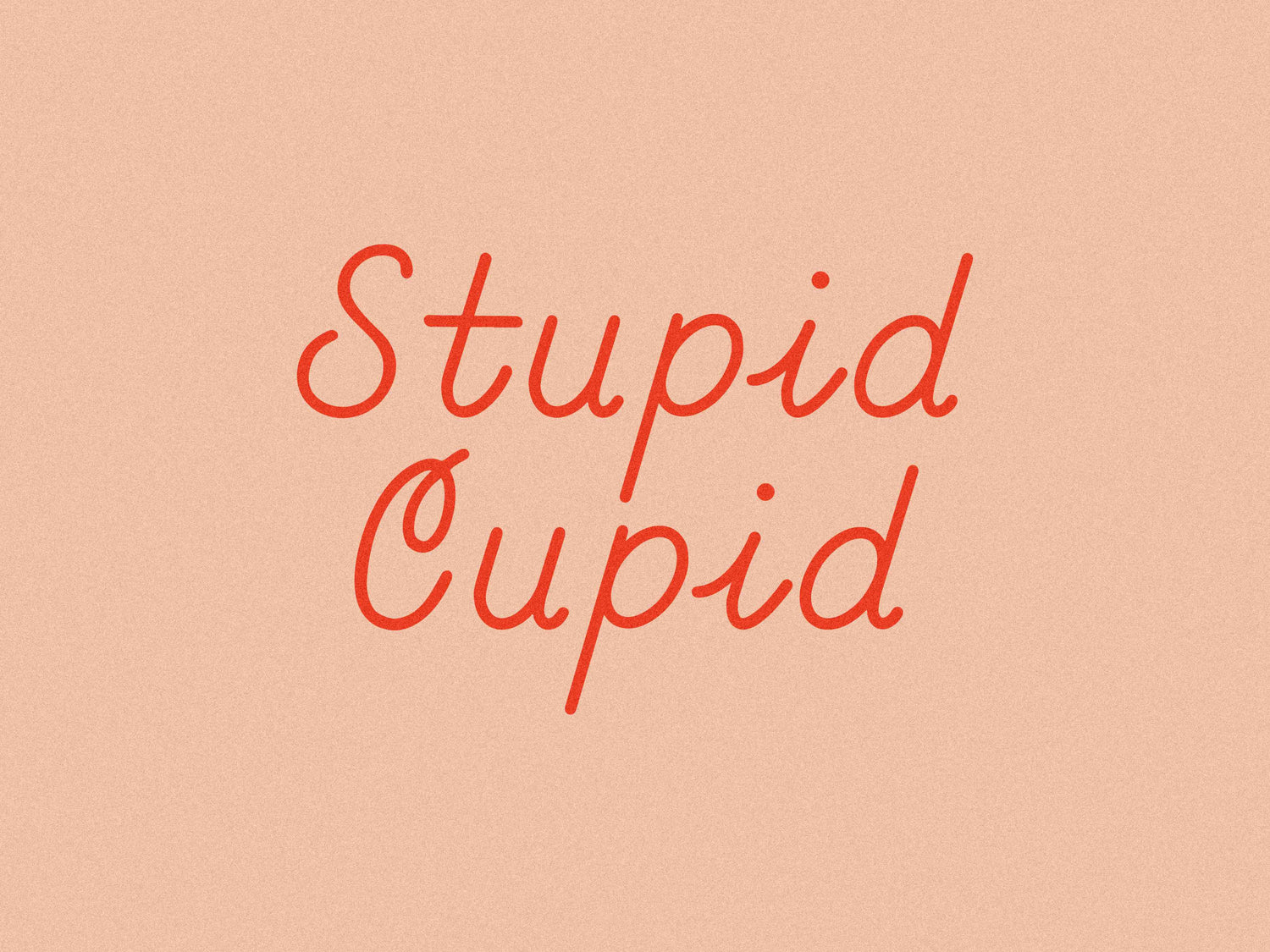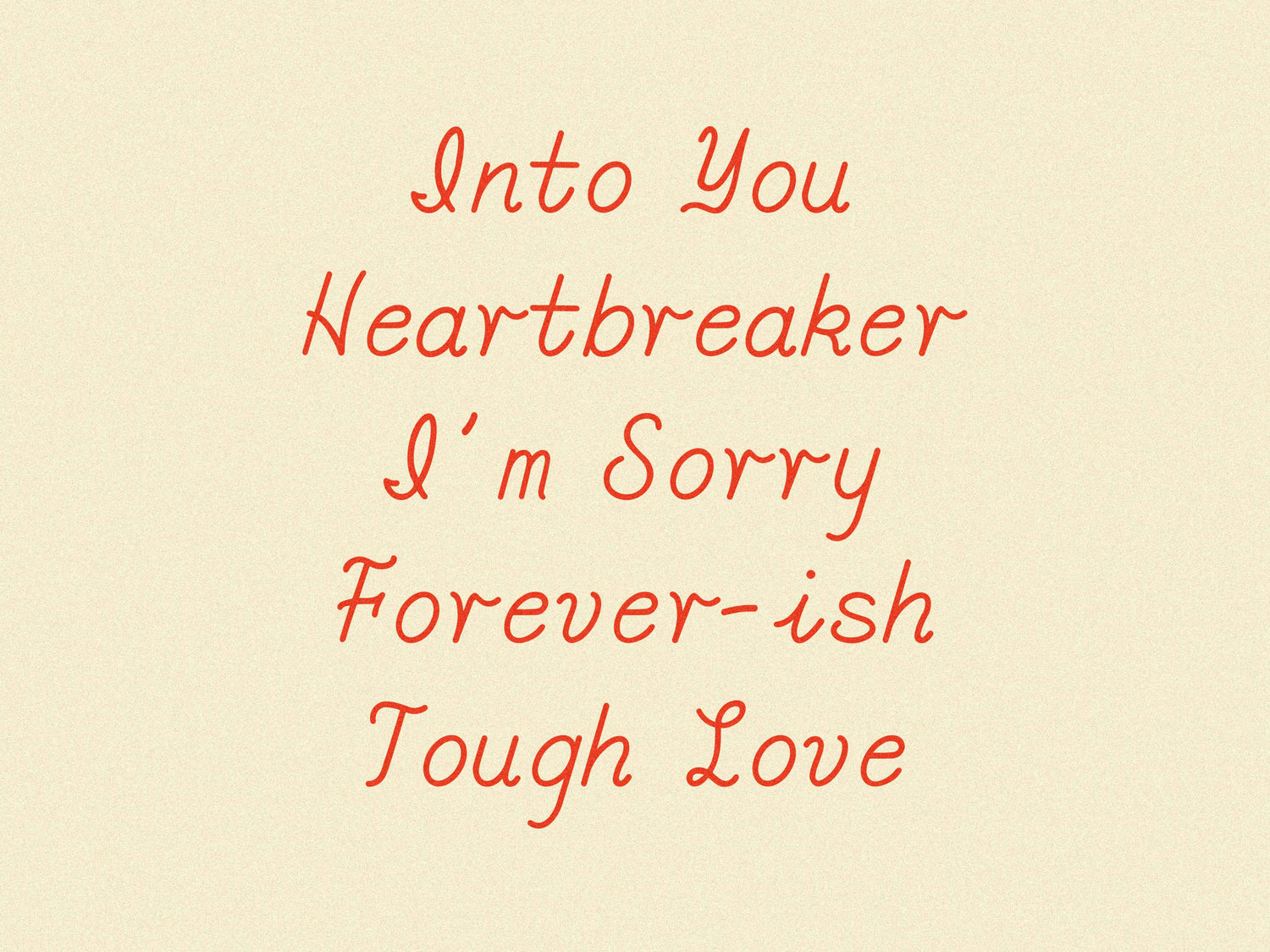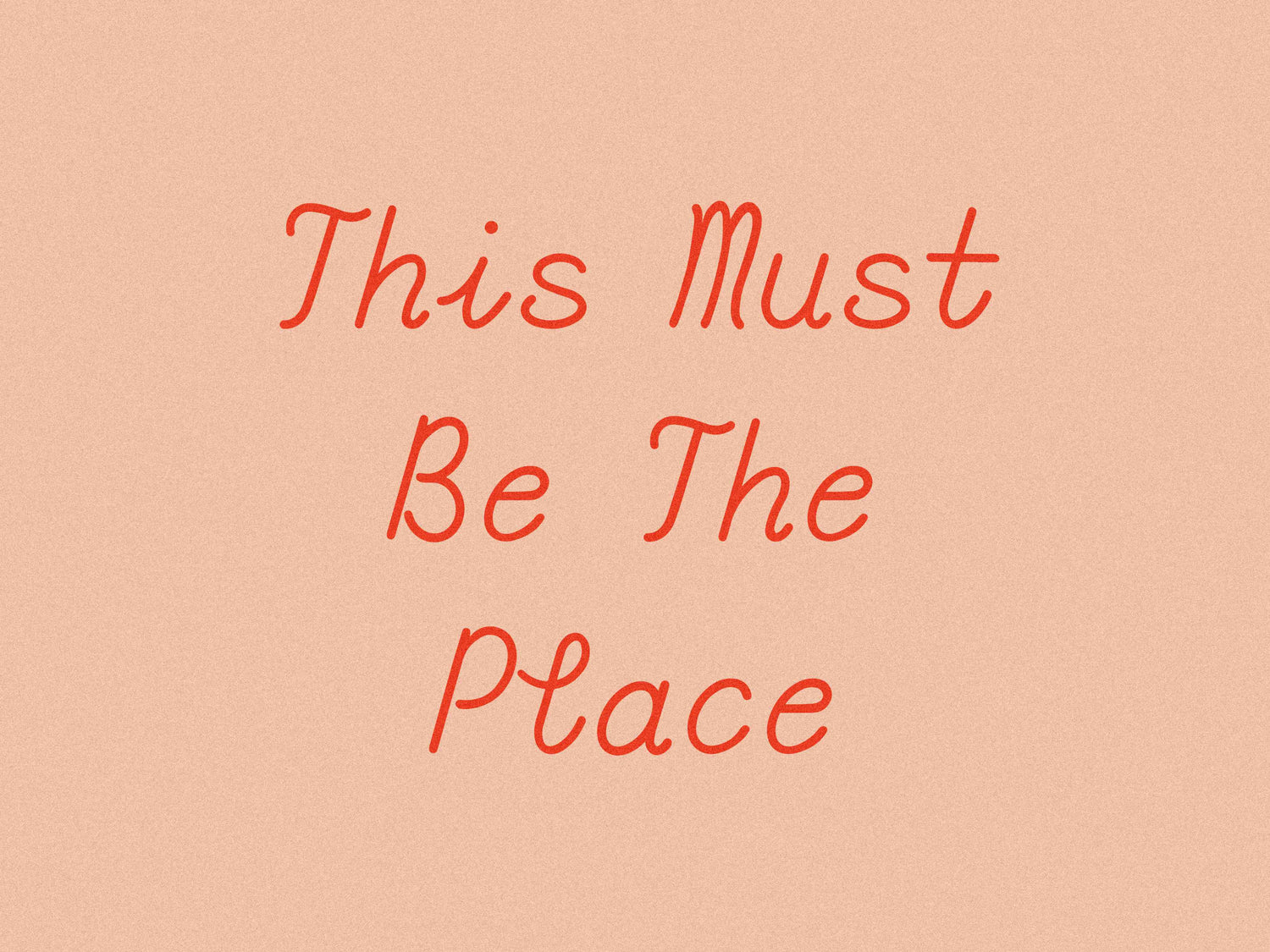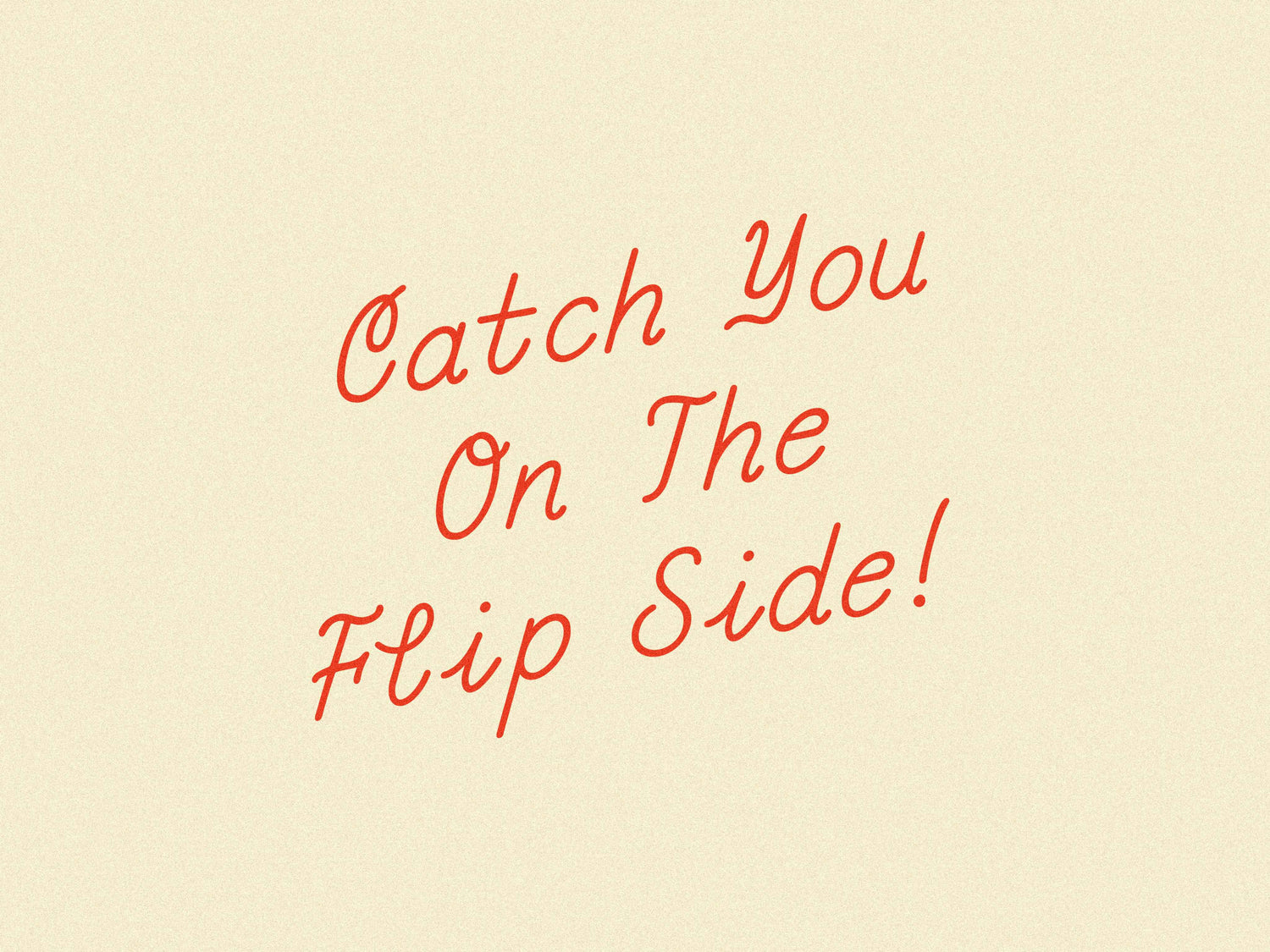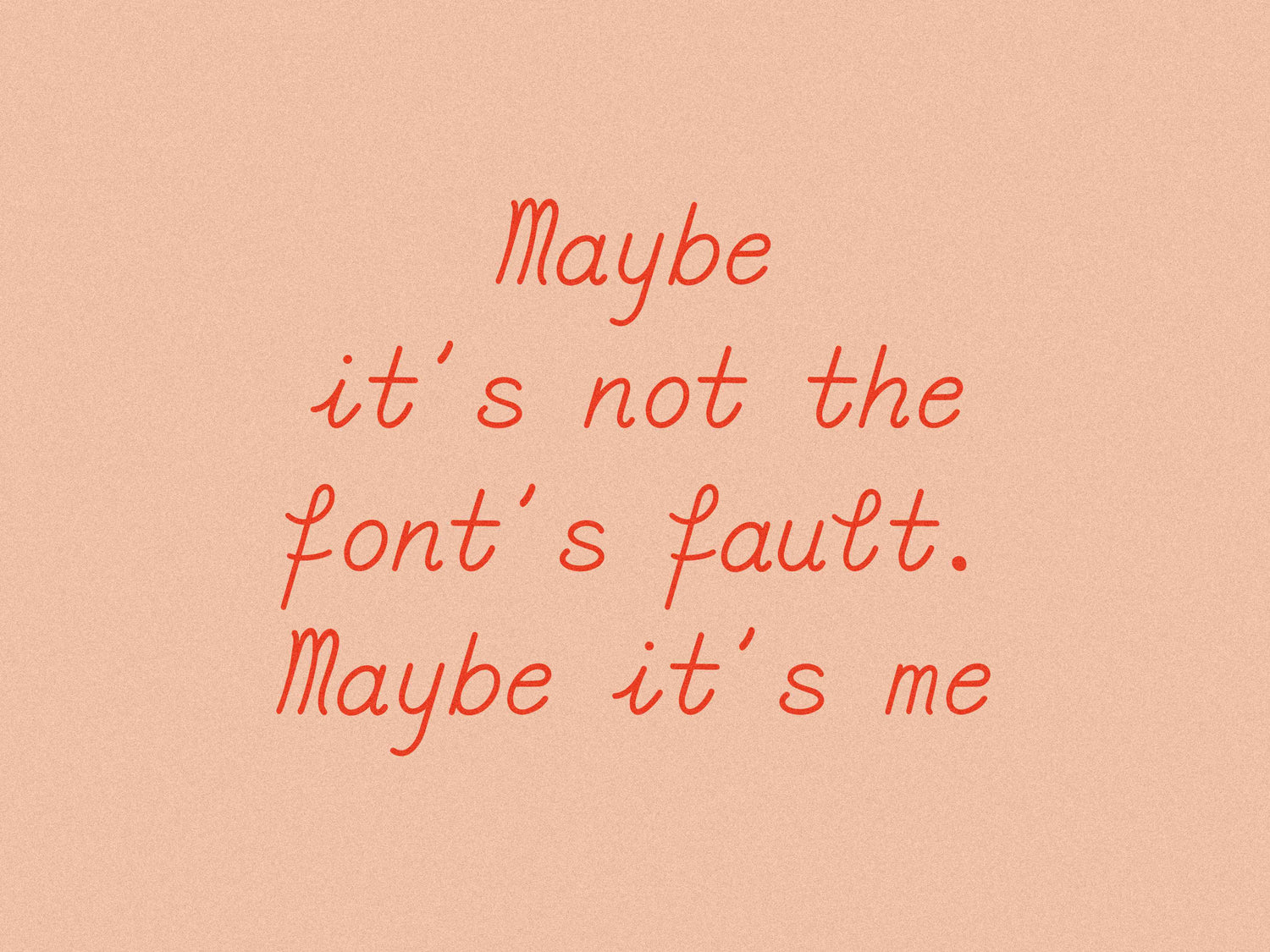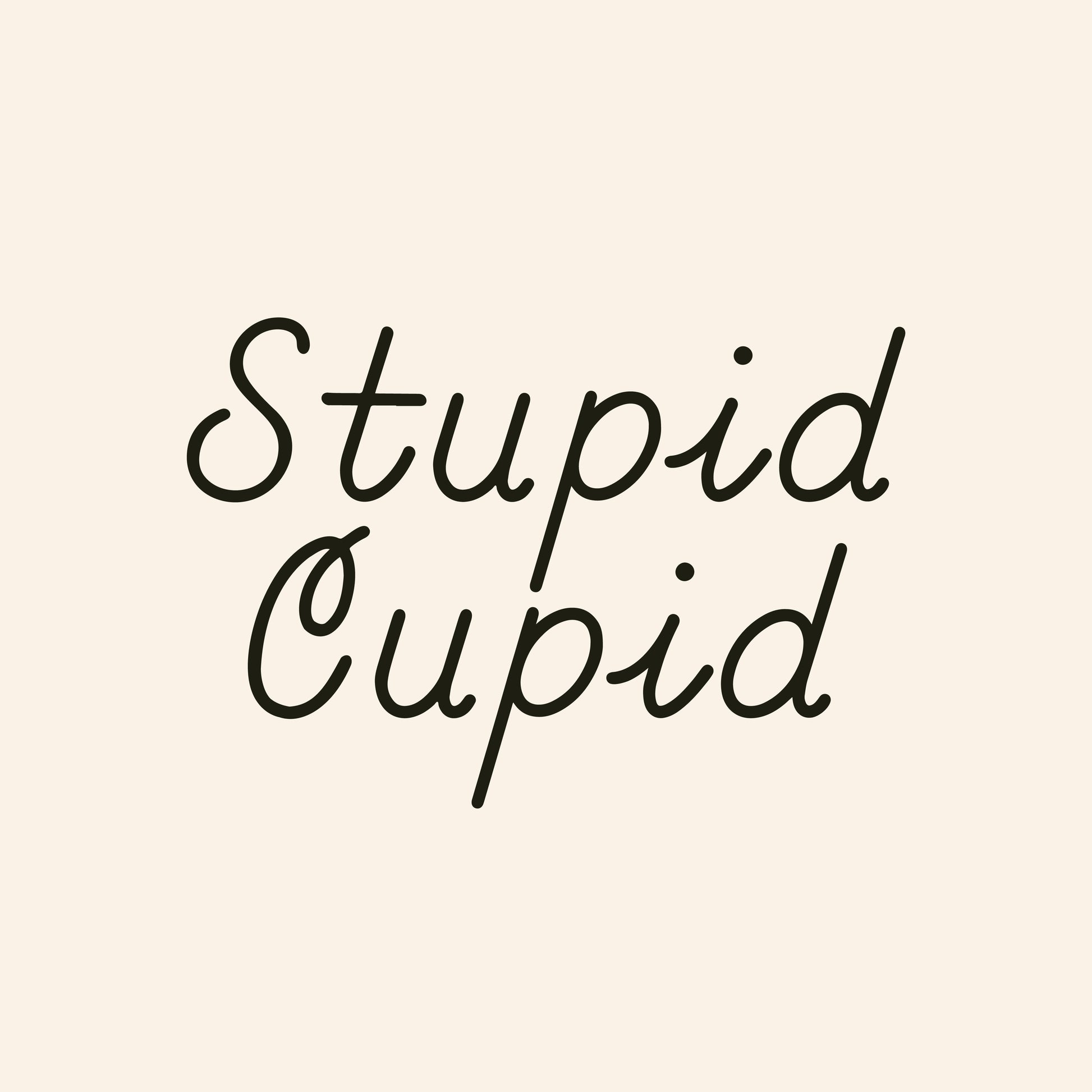
Stupid Cupid
Monospaced, mildly unhinged.
Settling on a single style wasn’t an option, so Stupid Cupid — The not-so-distant cousin to Cupid, was born. This monospaced typeface is welcoming and organic, filling that niche space in your fontbook.